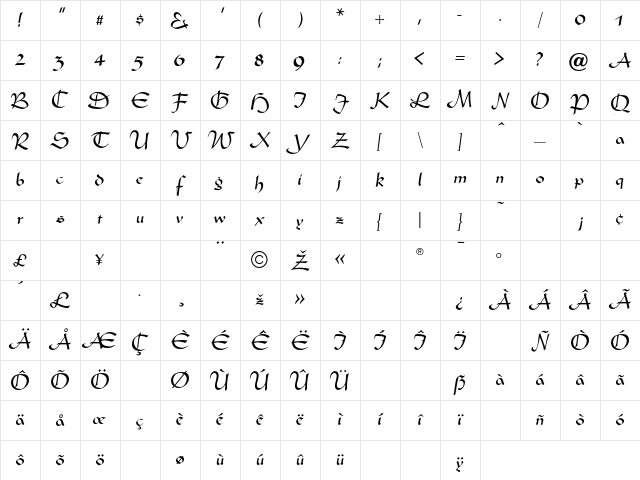
Complete Cardigan Regular glyph index. Displaying only characters natively supported by Cardigan Regular font.
Cardigan is a composed and adaptable typeface that performs quietly and consistently across a wide range of design contexts.